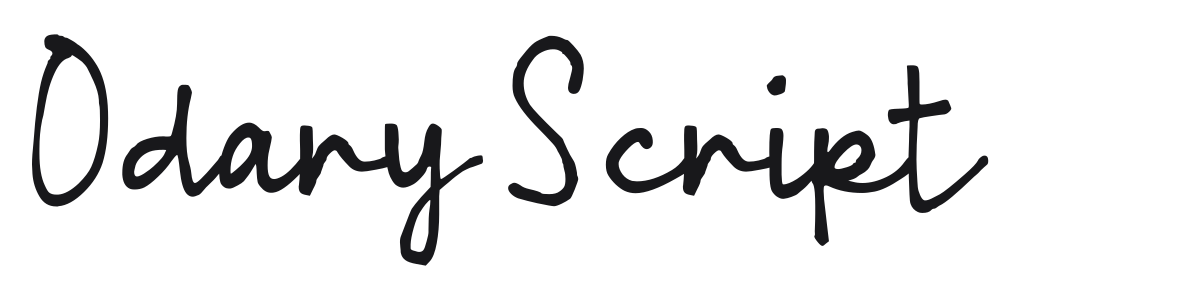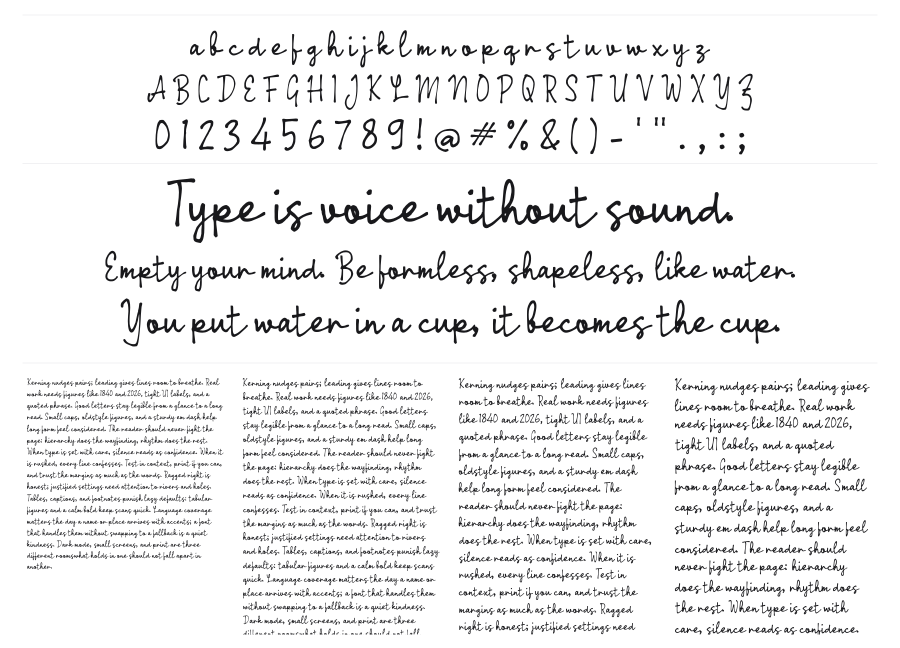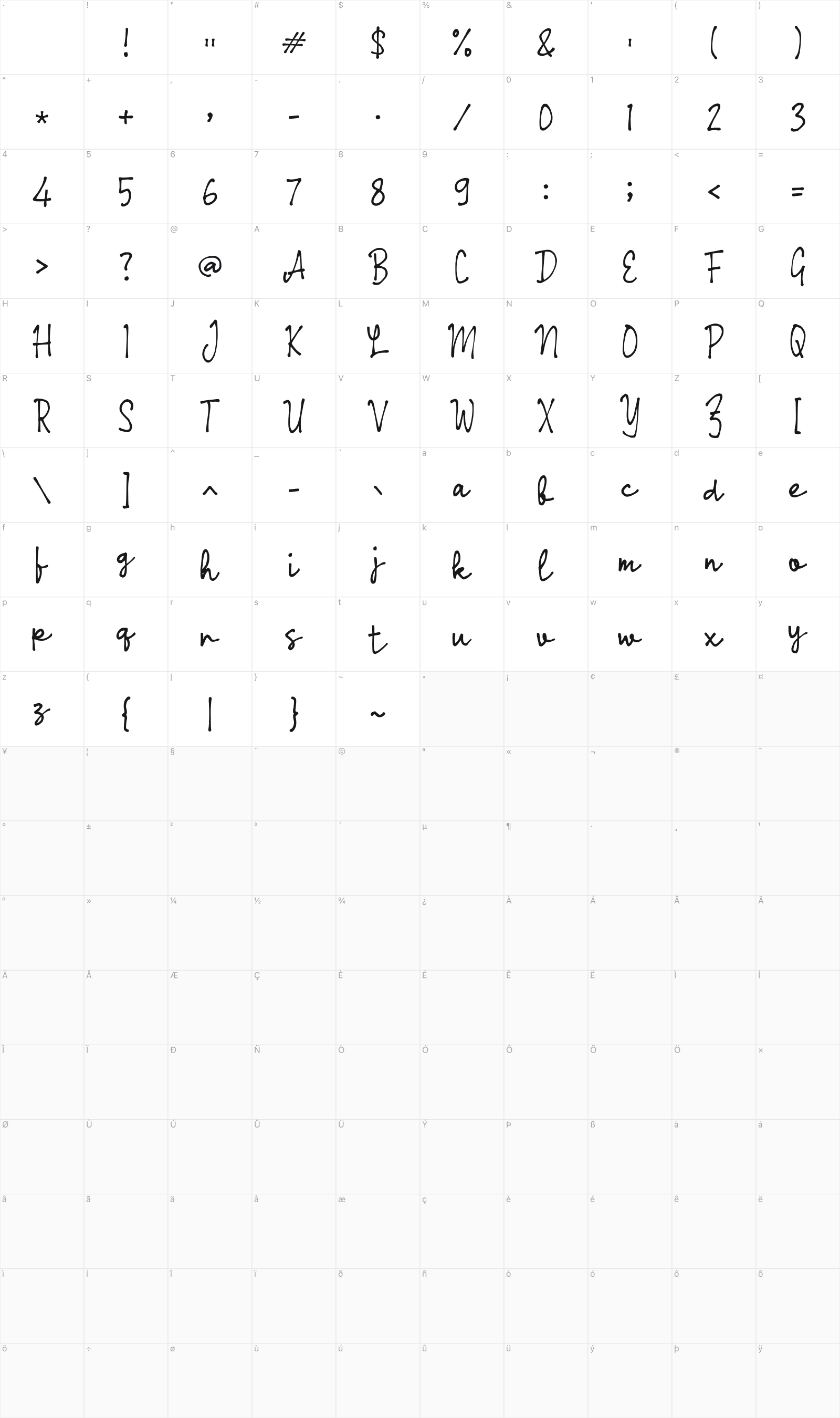
Odary Script
Odary Script is a flowing casual script with a natural, pen-drawn quality and smooth connected strokes. The rhythmic baseline and looping ascenders give it an effortless handwritten feel that sits between informal and polished. It works well for branding, packaging, and any project that needs warmth without formality.